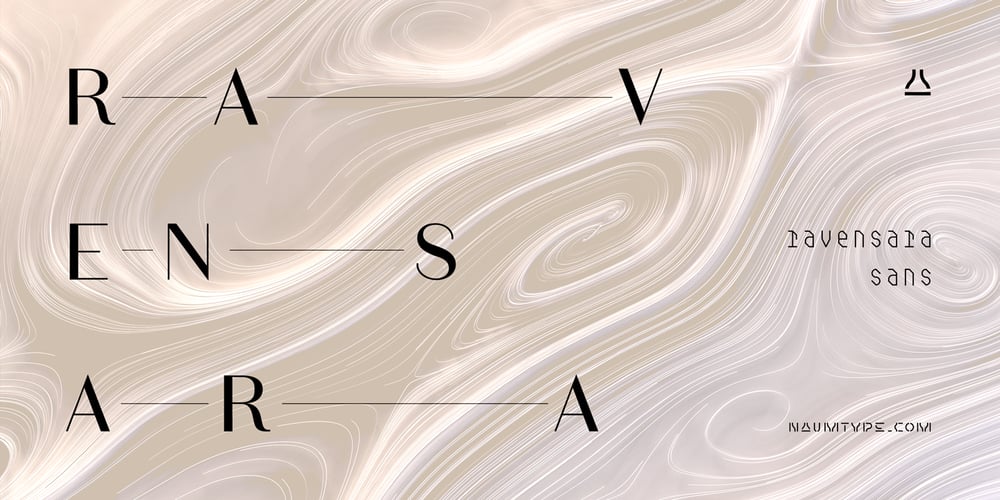
Ravensara Sans Font Family was designed by Peter Bushuev and published by NaumType. Ravensara Sans contains 7 styles and family package options. Ravensara Sans — fashionable, high-contrast humanist sans. Ravensara family was born from the idea of taking the concept of Didone to weight extremes. Ravensara Sans is available in 7 weights, including Thin, Light, Regular, Medium, SemiBold, Bold and Black. Depending on weight, Ravensara Sans, like the other members of this font family, show quite different behavior. Heavy weights function above all as display fonts and work particularly great in all-caps. Medium weights of Ravensara Sans represent humanist grotesque, descended from the pages of fashion magazines. Thin weight perfectly complements the others if you need an especially wide choice of weights. Also, all the weights work great in all-caps. Ravensara Sans is a part of the Ravensara superfamily, united by the same anatomy, which currently also includes Ravensara Serif and Ravensara Stencil. If you need to achieve classic Haute Couture look — Ravensara Sans is a great choice. It’s a perfect choice for fashion logos, headlines, short texts, magazines, due to its simplicity looks great in oversize typography, branding, identity, website design, album art, covers, posters, advertising, etc. Ravensara Sans extends multilingual support to Basic Latin, Western European, Euro, Catalan, Baltic, Turkish, Central European, Pan African Latin and Afrikaans.